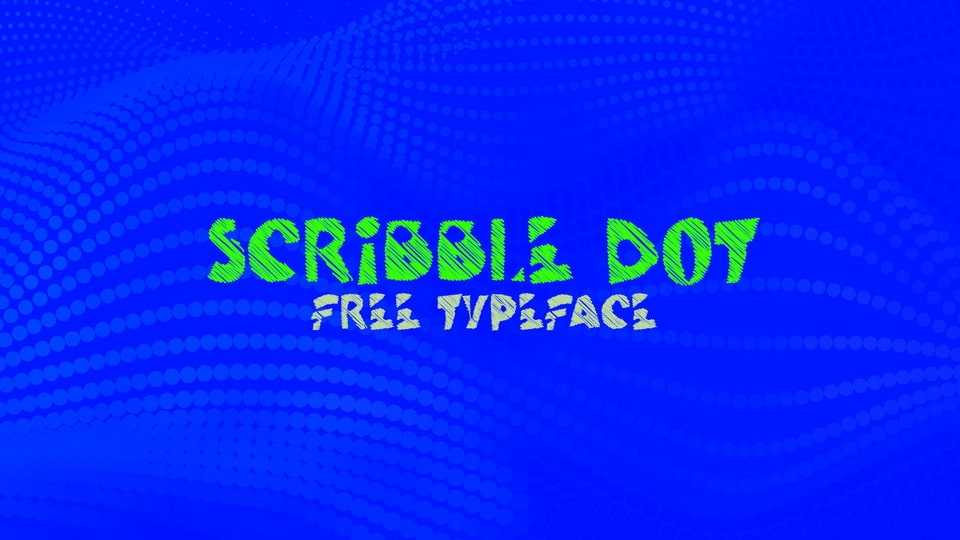
Download Scribble Dot font, a nice scribble decorative handwritten typeface. Scribble Dot is perfect for cute kids identity, funny craft package, vibrant poster and even more.